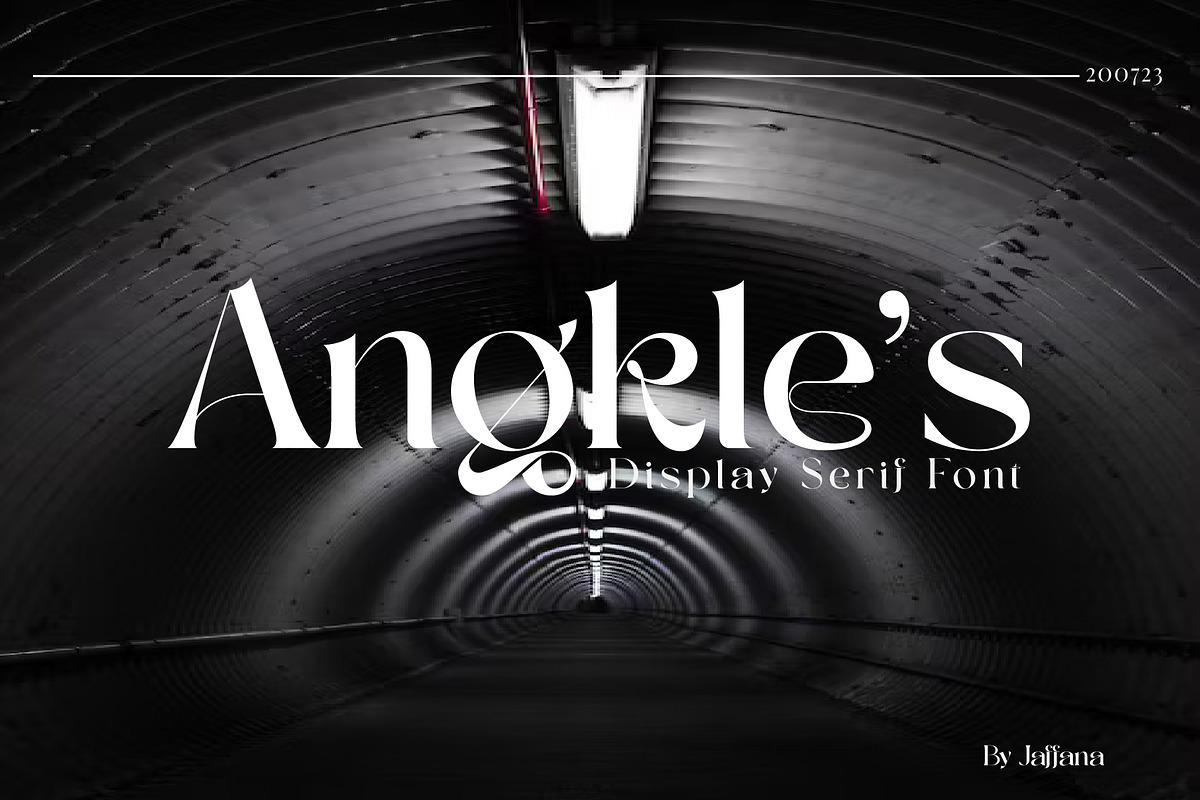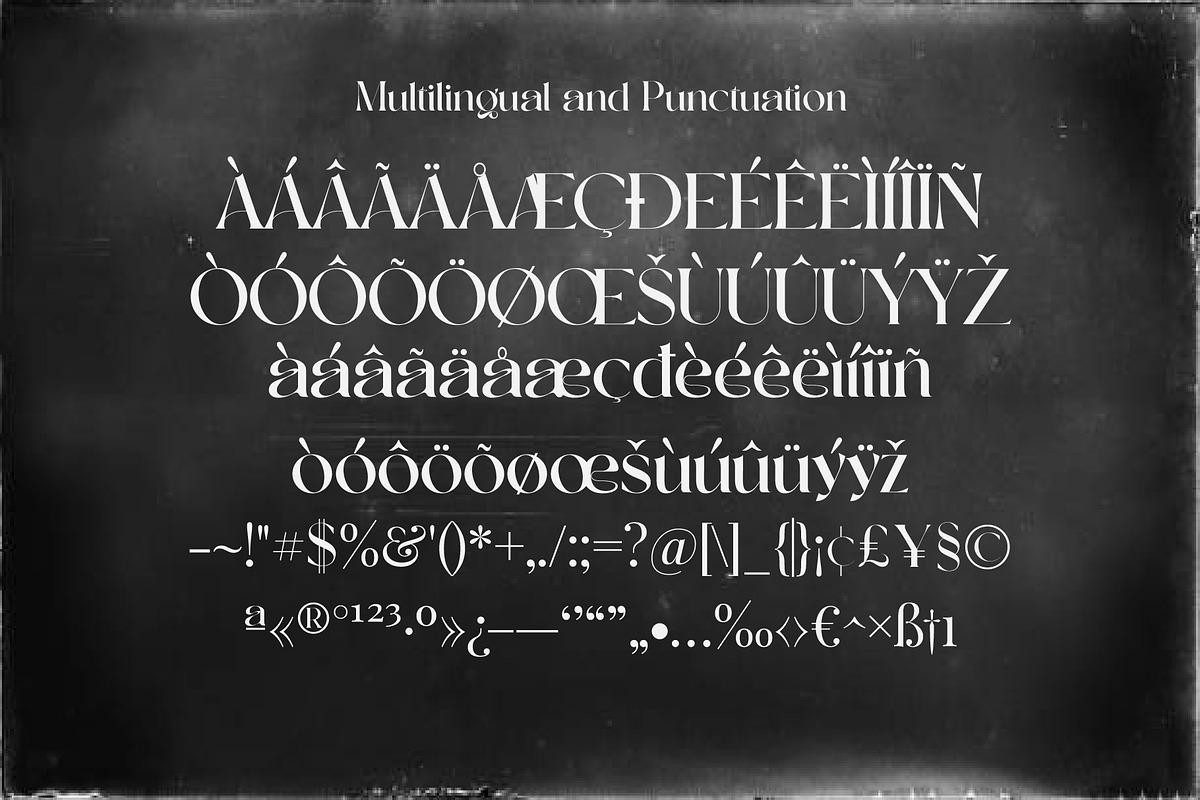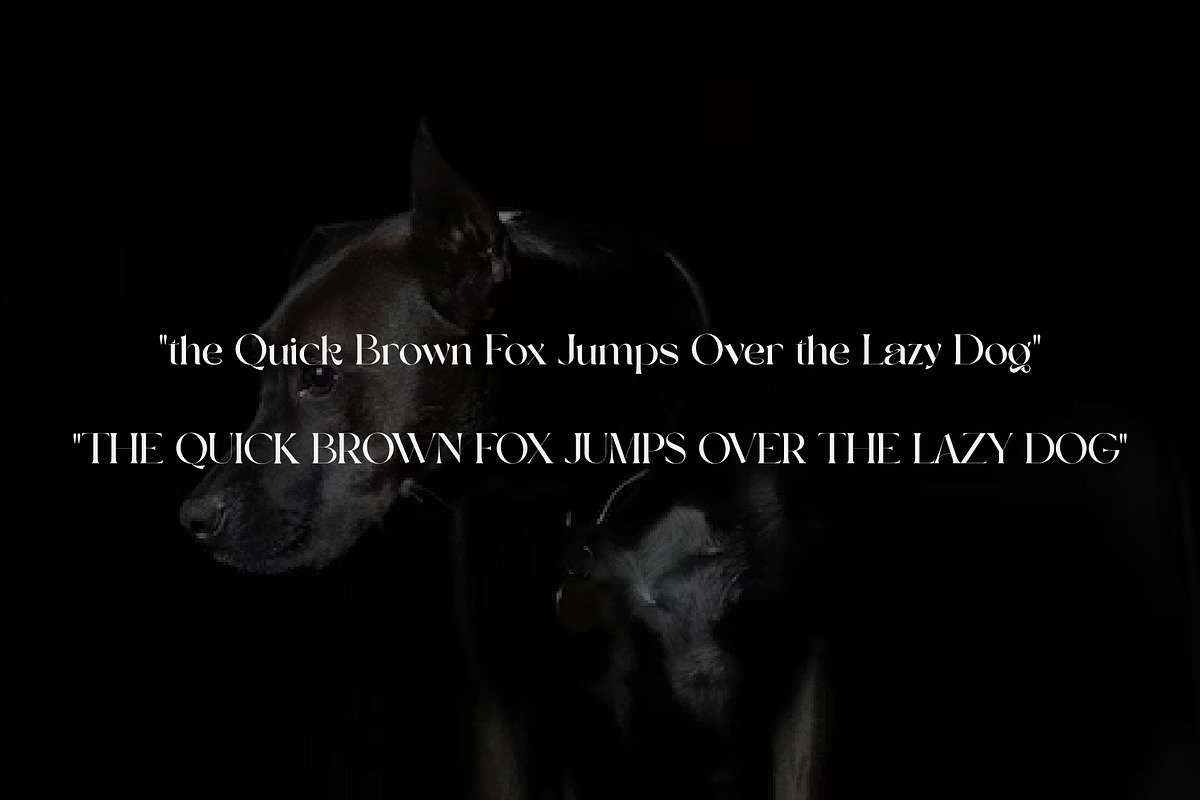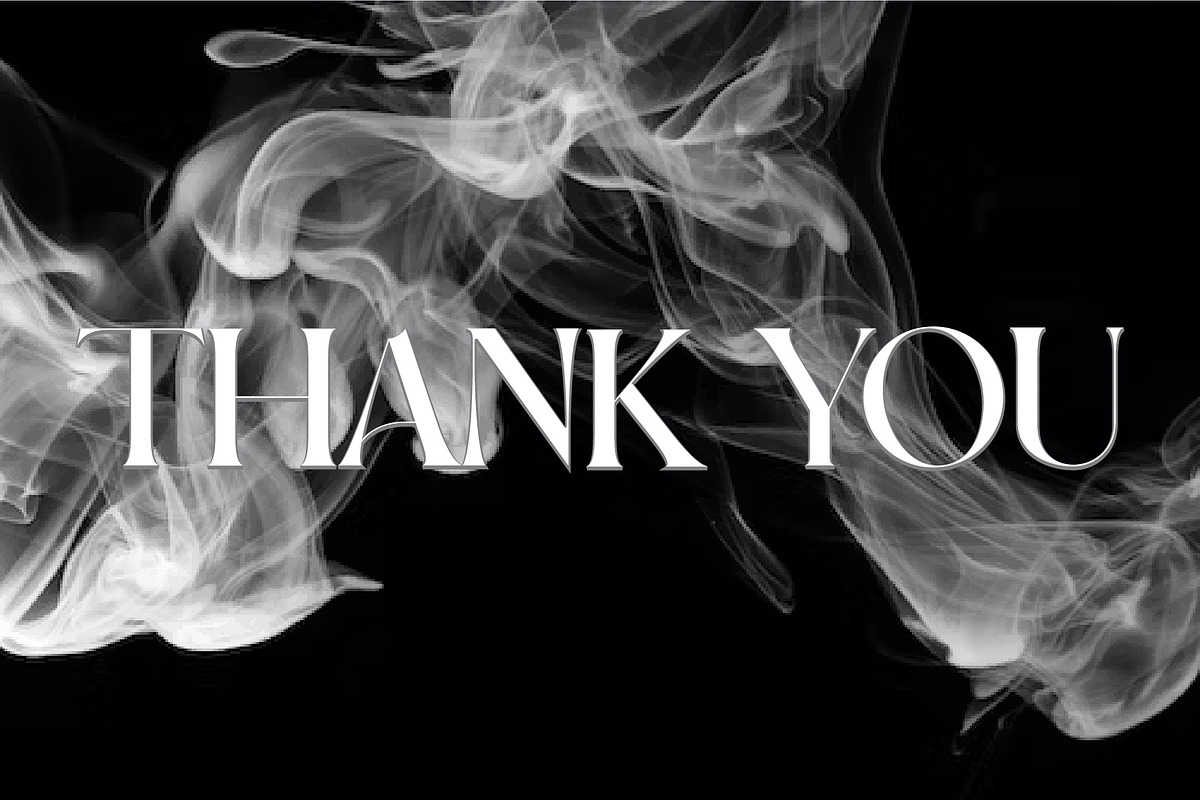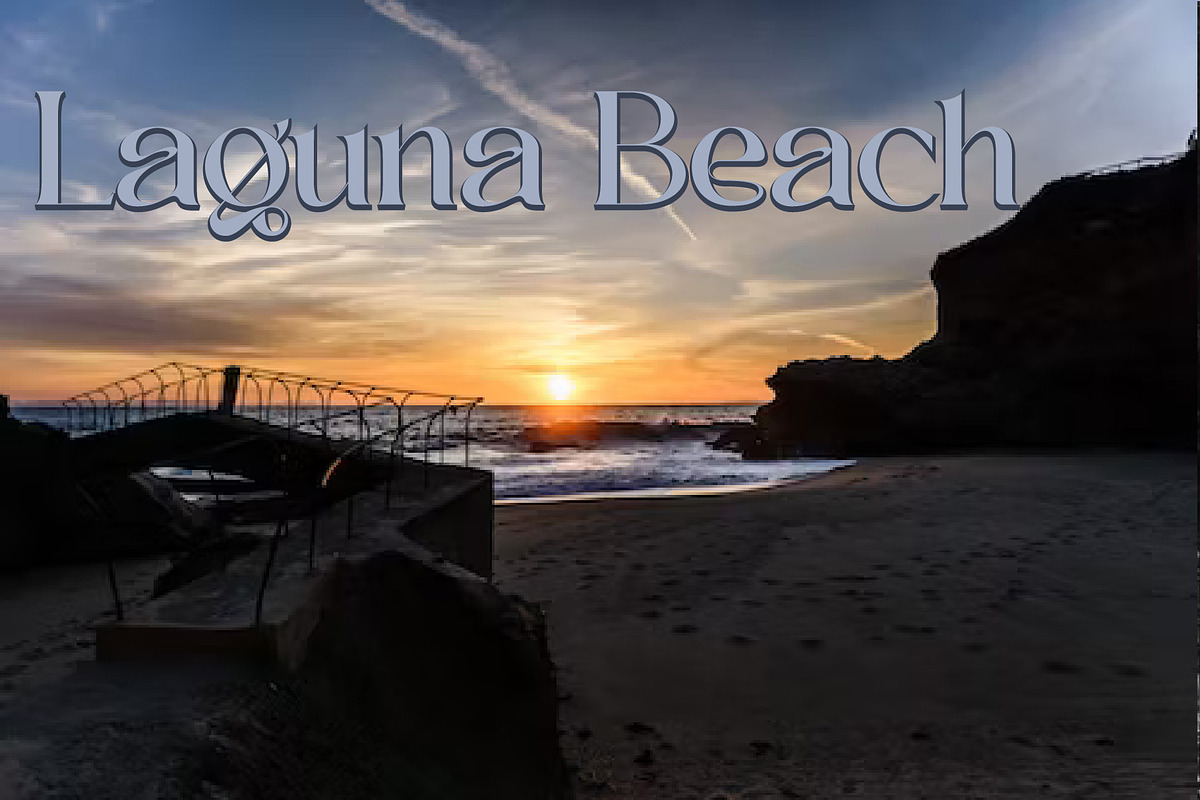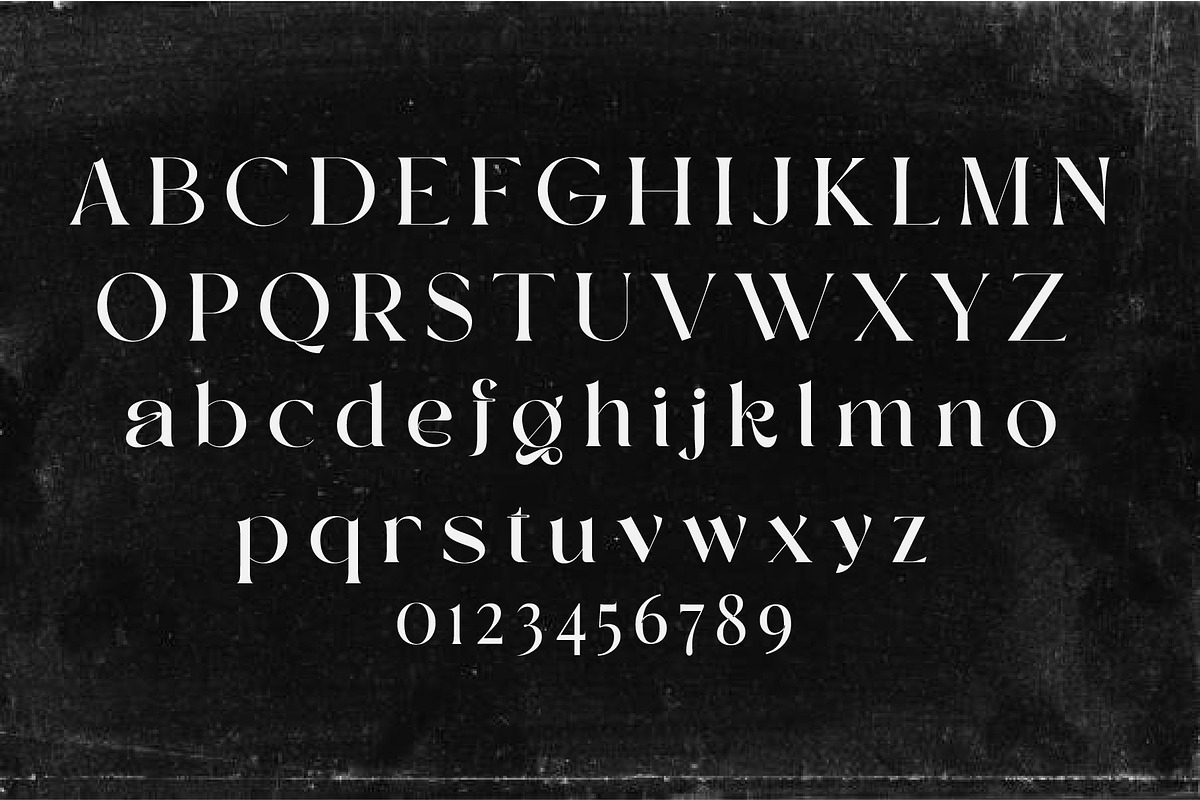
Angkle's
Angkle's is a fun and modern script font. featuring light weight, it offers support for all languages. standard punctuation glyphs included and multilingual included.Angkle's is perfect for traditional media and web. suitable for graphic arts craftsmen. Compatible with tools like Photoshop or Silhouette. The fun makes it great for creative projects, whether it's an inspiring wall poster or communicating your brand